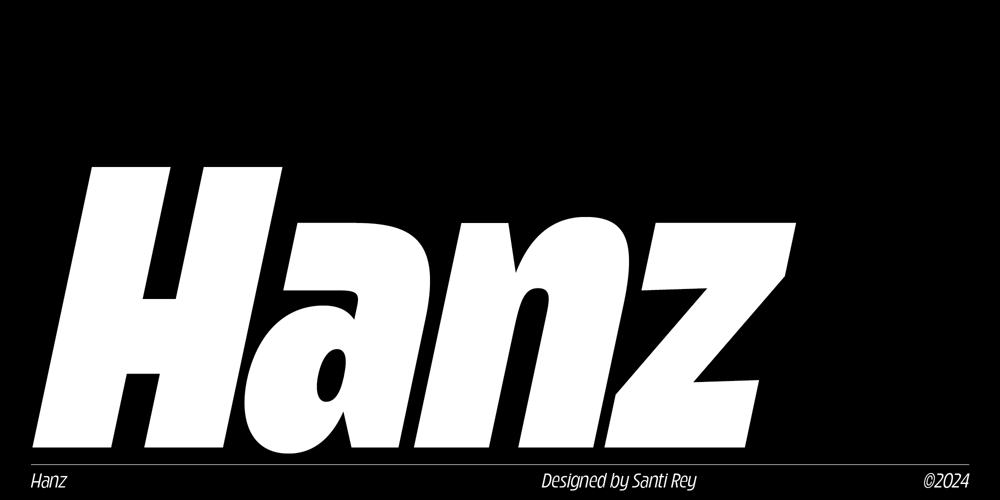
Hanz
Hanz font
Hanz Font Family was designed by Santi Rey and published by Santi Rey. Hanz contains 11 styles and family package options. Hanz is a powerful display typeface inspired by motor racing. Like a good race track, Hanz is a perfect mix of straight lines and fast curves. Its large Xheight makes it ideal for bold tight headlines.Hanz comes in 2 styles (Standard and Slant) and 5 weights; and supports major Latin-based languages.